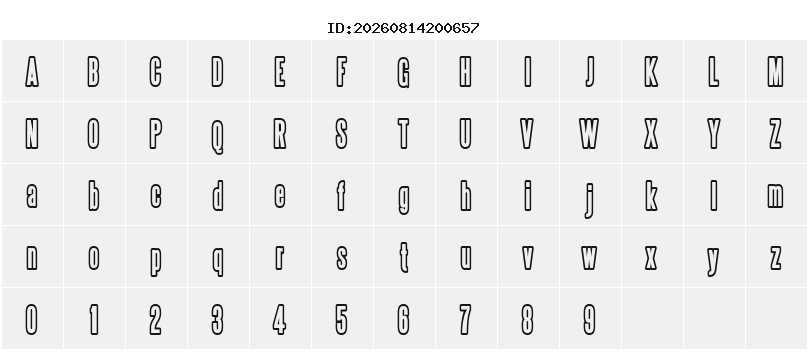
Steelfish Outline Preview
• Font Name: Steelfish Outline
• Designer: Ray Larabie
About Steelfish Outline.ttf
Steelfish Outline.ttf is a modern, elegant sans-serif font designed for ultimate readability and visual harmony. Perfect for branding, headlines, web design, and print materials.